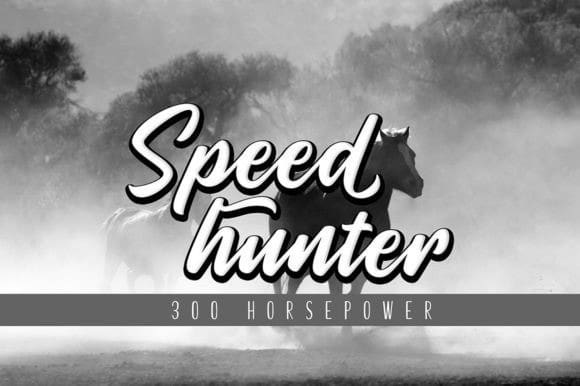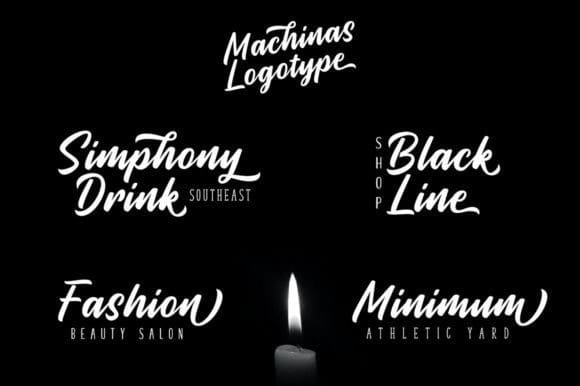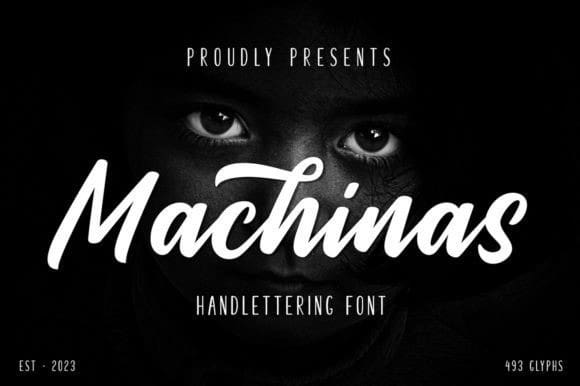
Machinas Script Font
Machinas Script Font is a retro and classic typeface inspired by the 70s – 90s designs with more unique explored styles like swosh and alternate characters. This font is made from a manual sketch with many many scratches then finished with the font. Make your designs project with this font and extras illustration to give a more superb. This font is also suitable to design like logos, stickers, tees design, banners, posters, sign, display design, packaging, and more superb designs!